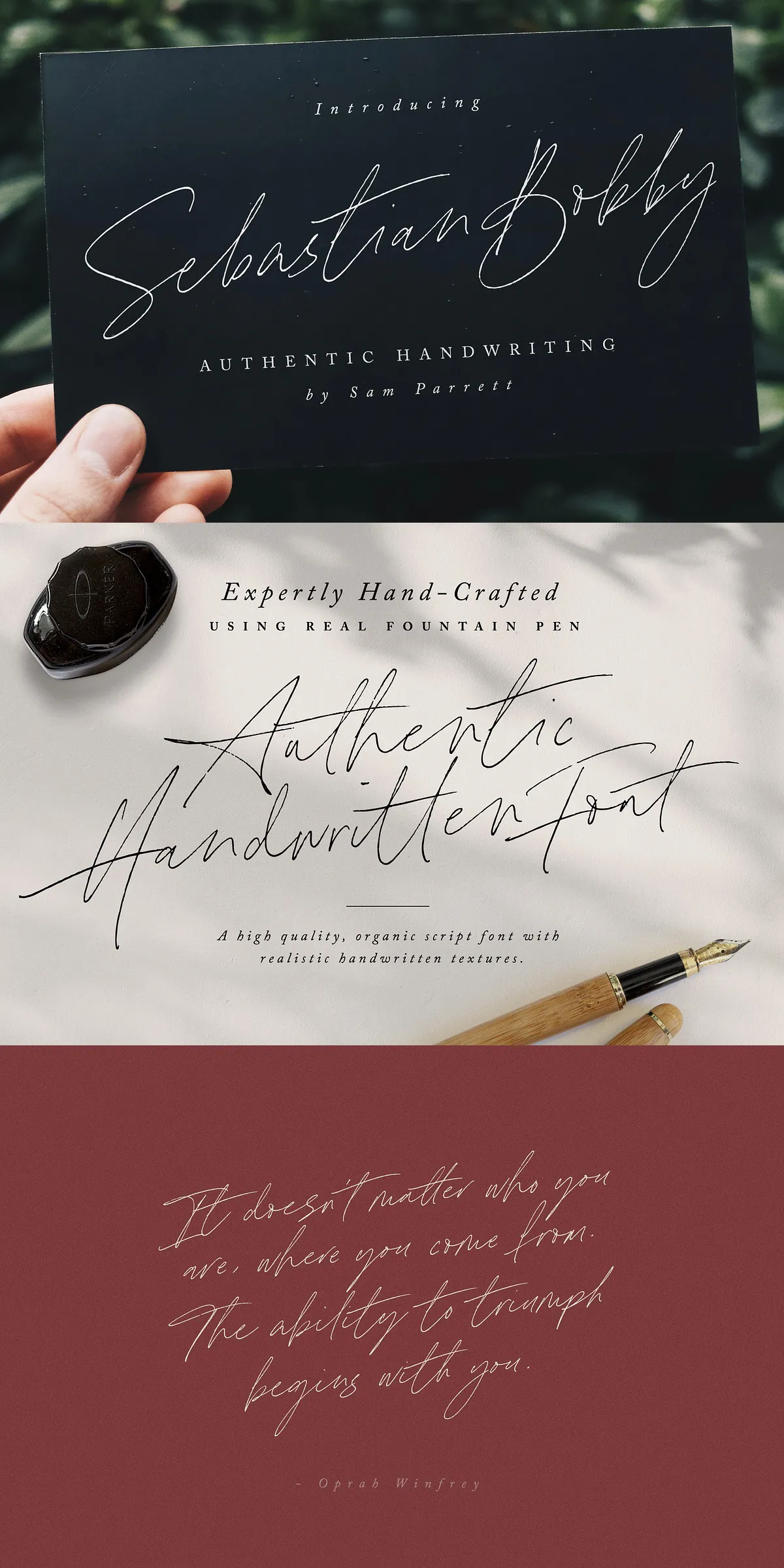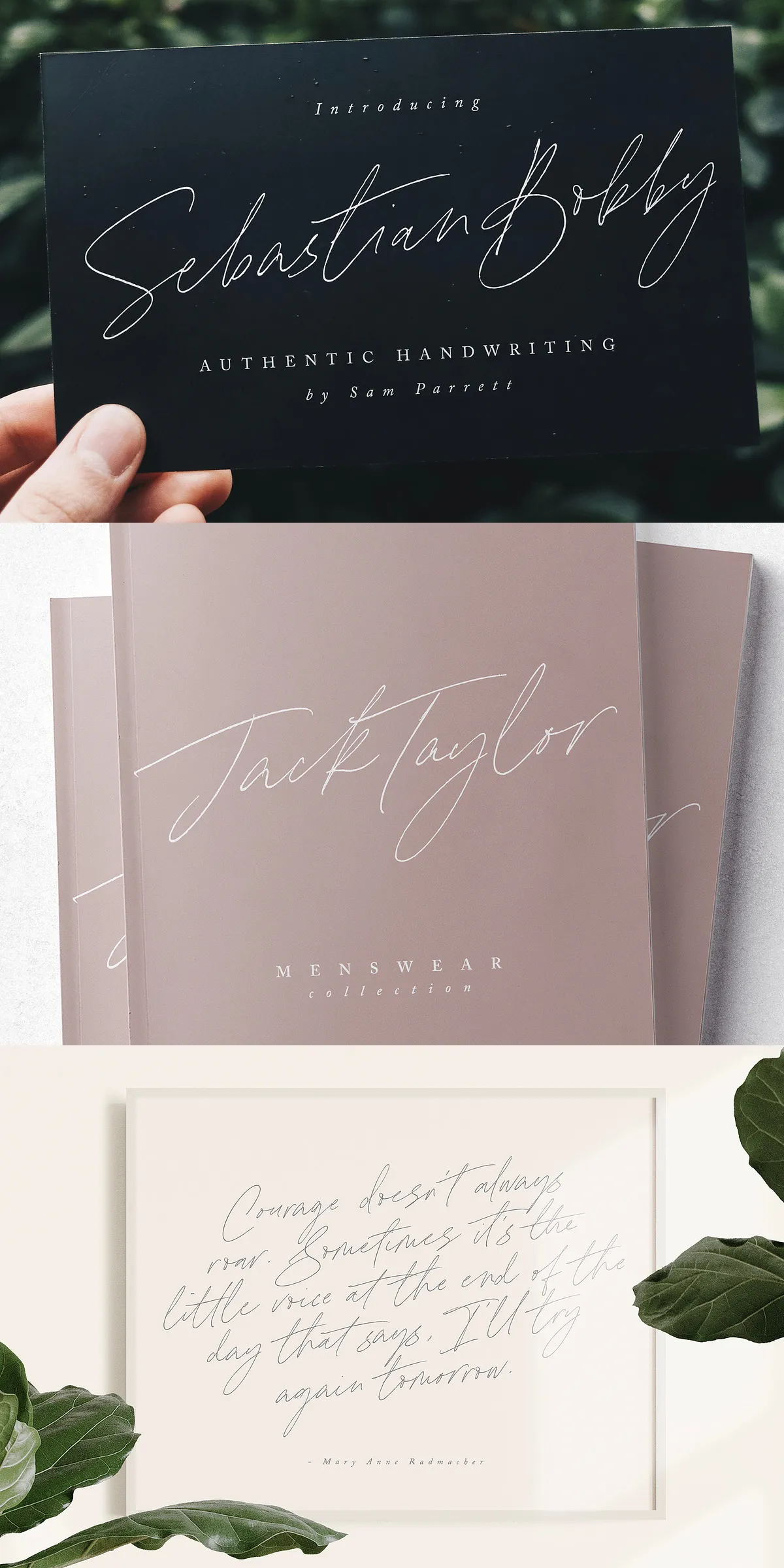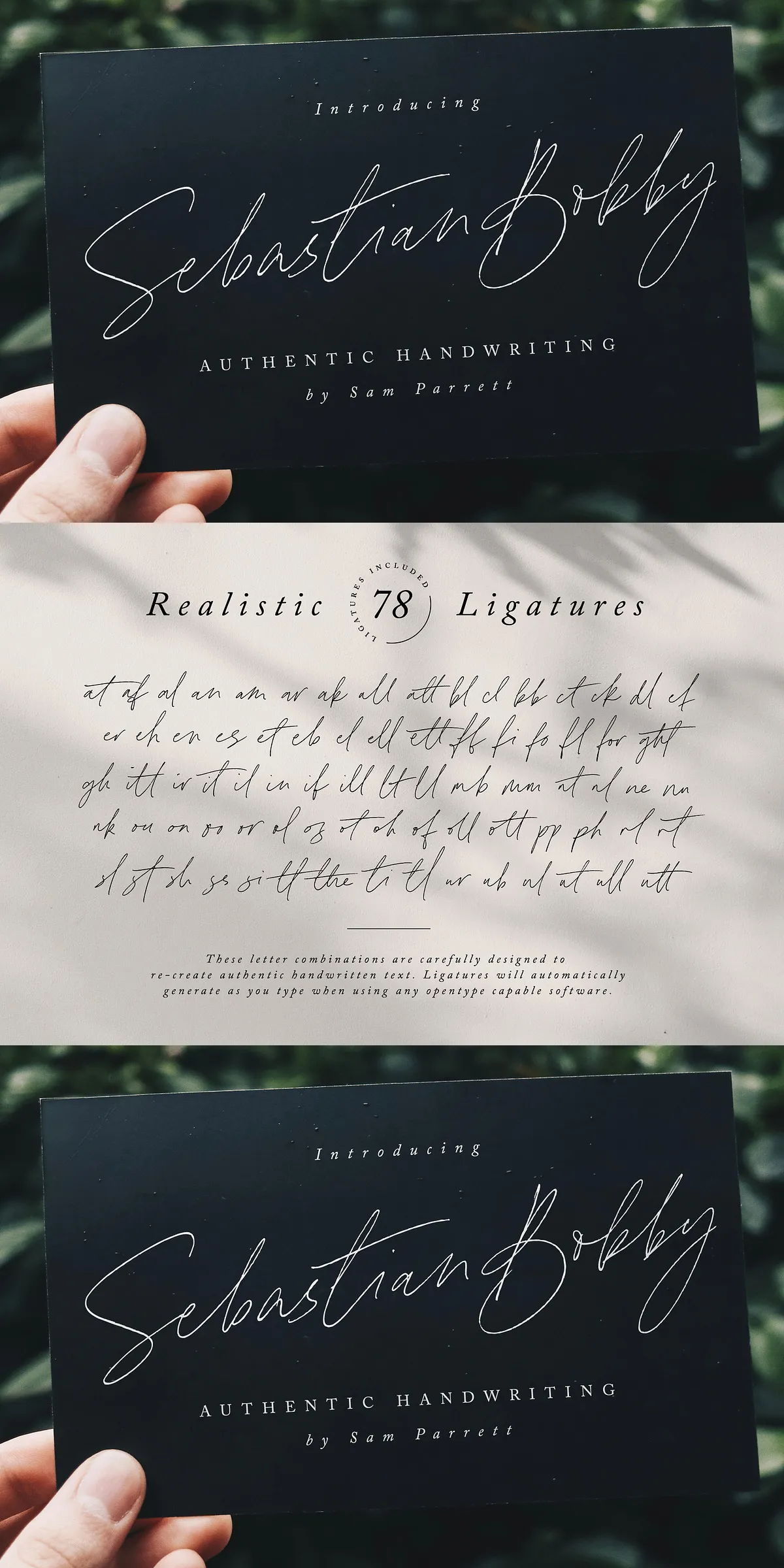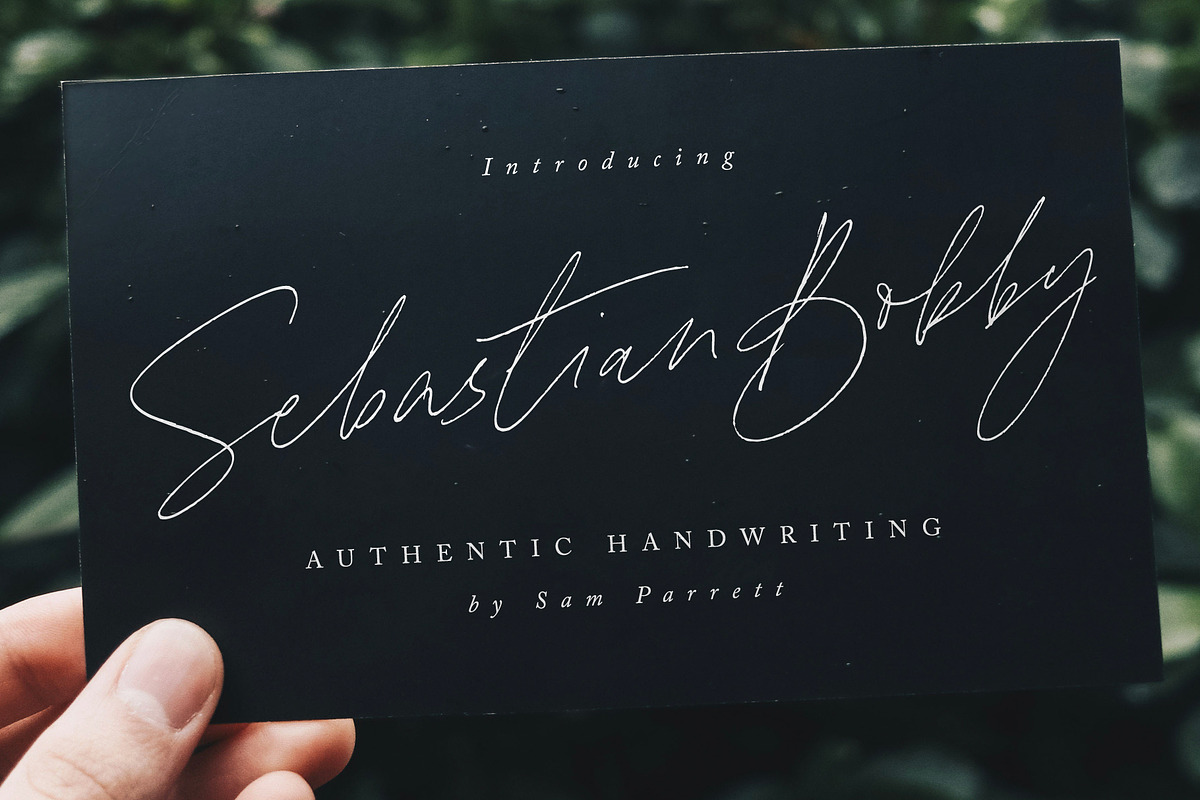
Sebastian Bobby Handwritten Font
Unleash the power of authentic handwriting with Sebastian Bobby Font — a stunning, hand-drawn script typeface created using a real fountain pen on premium paper. Every curve, stroke, and lift was carefully captured to replicate the natural rhythm of genuine penmanship. This is not a robotic imitation — it’s the real thing: fluid, expressive, and brimming with personality. Whether you’re crafting luxury branding, heartfelt invitations, or dynamic social content, Sebastian Bobby adds depth, warmth, and emotional impact where it matters most.
Engineered for Authenticity – Built from Real Pen Strokes
Unlike standard digital scripts that rely on machine repetition, Sebastian Bobby begins with a single, genuine hand-drawn line. The designer used a fountain pen with varying pressure, pen angle, and ink flow to mimic how a human hand truly writes. This meticulous process ensures no two letters look identical in the same word — just like real handwriting. The result? A font that feels alive, unpredictable, and deeply personal. It doesn’t just spell words — it tells stories.
Rich Feature Set for Dynamic, One-of-a-Kind Layouts
Sebastian Bobby is more than a pretty script — it’s a creative toolkit built for versatility and impact:
• 78 Custom Ligatures – Effortlessly connect letters with hand-crafted transitions that eliminate stiffness and mechanical spacing. These advanced ligatures create a continuous, flowing motion that simulates speeding up or slowing down a pen mid-word.
• Two Distinct Font Versions – The standard Sebastian Bobby and the Alt variant offer entirely different character sets. Use them together to prevent repetition and craft unique, custom looks that stand out in any project.
• Slanted (Italic) Variants – Both the regular and alternate fonts include beautifully designed slanted versions. Ideal for conveying speed, energy, or a bold narrative rhythm in headlines and quotes.
• Full Character Coverage – Includes uppercase and lowercase letters, numerals, punctuation, currency symbols, and special characters for clean, professional layouts across any language.
Designed for Projects That Demand Feel and Impact
Sebastian Bobby thrives in applications where authenticity elevates the experience. Here’s where it shines:
Signature-Style Branding & Logo Design
Build memorable, human-centered identities for boutiques, lifestyle brands, wedding planners, and artisanal products. The natural variation in stroke weight and glyph shape gives your logo a handmade edge — trustworthy, unique, and deeply personal.
Handcrafted Wedding Invitations & Stationery
Elevate your digital and print invites with a look that feels hand-written and heartfelt. From save-the-date cards to menu cards and thank-you notes, Sebastian Bobby adds an elegant, bespoke finish that makes guests feel truly special.
Social Media Quote Graphics & Digital Content
Create visually captivating quote posts for Instagram, Facebook, and Pinterest. The dynamic flow and organic shape of each letter grab attention, helping your message stand out in algorithm-heavy feeds. Perfect for influencers, coaches, and content creators.
Product Packaging & Label Design
Infuse wrapped gifts, handmade candles, eco-friendly skincare, and art prints with elegance. Sebastian Bobby transforms packaging into a personal experience — like a note from a friend, not a mass-produced label.